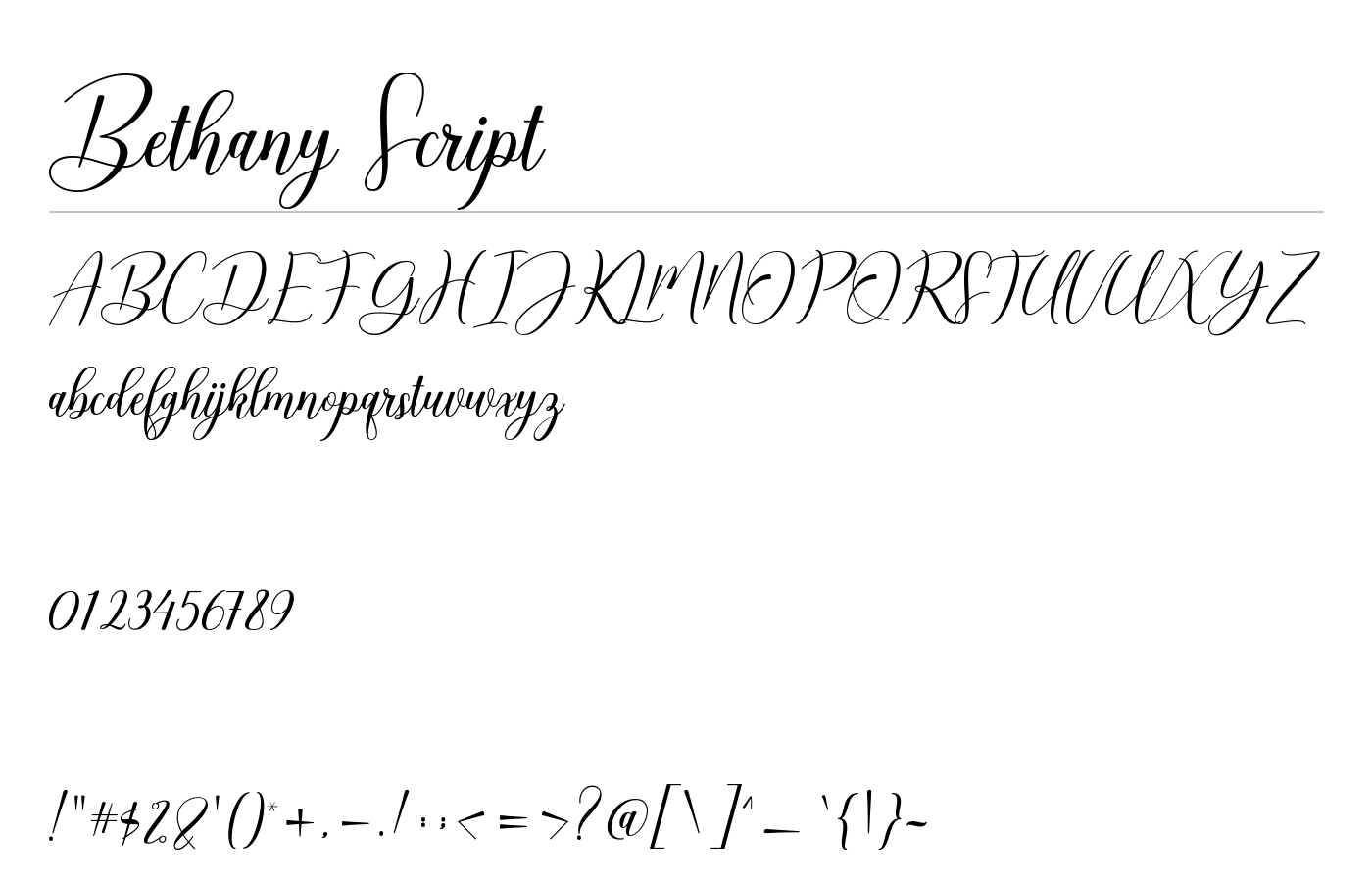
Bethany Script is an elegant and delicate script font characterized by its flowing, handwritten style with fine, graceful strokes and moderate contrast. It features tall, slender letterforms with a refined and airy feel, combining both fluid uppercase and more solid, connected lowercase characters that add sophistication and charm. Ideal for wedding invitations, luxury branding, and romantic designs, this font brings a personal, artistic touch that communicates elegance and warmth.
Bethany Script Font
About Bethany Script Font
| Font family | Bethany Script Font |
| Designer | Romie Creative |